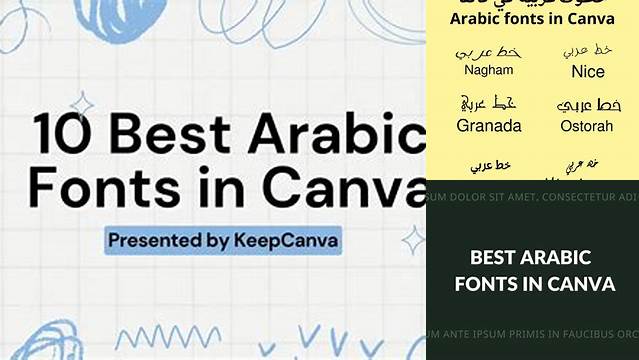
Canva Arabic Fonts: Names & How To Use Them
Alright guys, let's dive into the awesome world of Canva Arabic fonts! If you're looking to add a touch of Arabic flair to your designs, you've come to the right place. Finding the perfect font can sometimes feel like searching for a needle in a haystack, but fear not! We're going to explore the names of some fantastic Arabic fonts available on Canva and how you can effectively use them to create stunning visuals. Whether you're designing social media posts, presentations, or marketing materials, knowing the right fonts can make a massive difference. So, let's get started and unlock the beauty and versatility of Canva Arabic fonts together. Get ready to elevate your designs with a cultural and artistic touch!
H2: Unveiling Popular Canva Arabic Fonts: A Comprehensive List
Let's kick things off by exploring some of the most popular and widely used Canva Arabic fonts. Knowing these names will be your first step to finding them. These fonts are specifically crafted to meet the needs of designers who need to produce Arabic script content. Here's a list of some popular ones, known for their readability and aesthetic appeal. Let's start with a classic: Al-Qalam. This font is a great choice for formal documents, and headings and evokes a sense of tradition and authority. Next, we have Lateef, a beautiful font often used for creative designs. It's got great readability and elegance and is perfect for elegant designs. Another popular option is El Messiri, a font that exudes a modern feel. It is perfect for social media posts, and modern graphics. We have Cairo, a versatile font, perfect for both body text and headlines, offering a balanced and clear design. Don't forget Droid Arabic Naskh, a font offering a good balance between readability and style. It's a great choice for lengthy texts. Lastly, Kufi is a historic and geometric style, well-suited for logos, titles, and decorative applications. Remember, this is just a start! The world of Canva Arabic fonts is vast and dynamic, so feel free to explore and experiment. Understanding their unique characteristics will help you select the perfect font for each project. Remember to preview each font in your design before committing to it fully. This allows you to assess the font's suitability and make necessary adjustments, ensuring your design is both visually appealing and functionally effective. So, take your time, explore the options, and get ready to create designs that will captivate your audience!
H3: Detailed Descriptions of Popular Arabic Fonts on Canva
So, let's dive deeper into some of these incredible fonts and understand what makes them so special. First up, Al-Qalam. This is a very traditional-looking font and is often found in official documents and traditional designs, think of invitations, formal announcements, or anything that needs a touch of formality and sophistication. The strokes are typically clean and well-defined, making the text easy to read. This font is a great way to establish a sense of authority or cultural importance in your designs. Next, we have Lateef. This font is a great choice for creative projects, such as posters, graphics, and branding. The flowing lines and elegant curves create a sense of beauty and finesse. It's perfect for designs that need a touch of elegance, such as wedding invitations or artistic posters. With Lateef, your designs are sure to have a timeless look. El Messiri, a modern font, is a great choice for contemporary designs, such as social media posts, website headers, and modern infographics. The font's clean lines and bold presence make it perfect for grabbing attention and creating a modern visual impression. This is your go-to for designs that need to feel sleek and stylish. Consider it for your next trendy social media post or modern presentation. Then there is Cairo. This font is perfect because it's easy to read and versatile. It's a great option for both body text and headlines, thanks to its balanced design and excellent readability. Its simplicity allows your message to shine through without distracting from the overall design. Think of using it for presentations, brochures, or any project where clarity is important. Droid Arabic Naskh is another great option, perfect for long-form text content, such as articles or books. It provides readability, ensuring a comfortable reading experience, making it perfect for educational materials. This font balances style and functionality, allowing you to make your texts look good and easy to read. Finally, we'll talk about Kufi. Kufi fonts are known for their geometric shapes and historic significance. They are perfect for logos, titles, and decorative applications. The bold, stylized strokes make it eye-catching and memorable. It is great for branding projects or designs that require a touch of historical inspiration. Remember, each font has its unique personality and style, and the best choice will depend on your specific design needs.
H2: Searching and Locating Arabic Fonts Within Canva's Interface
H2: Best Practices for Using Arabic Fonts in Canva Designs
Alright, let's talk about how to use Canva Arabic fonts effectively to make your designs pop! When working with Arabic fonts, there are a few important things to keep in mind to ensure your text looks great and communicates your message effectively. Firstly, consider the readability of the font. Some fonts are designed for headlines, while others are better suited for body text. Make sure the font you choose is easy to read and that it fits the purpose of your design. Pay attention to the spacing between letters, lines, and paragraphs. Adjust the spacing so the text is easily readable. Experiment with different font sizes and styles to see what works best. Make sure the text is clear and not too small, so your audience can read it easily. Contrast is important too. Ensure there's enough contrast between the text and the background. Choose a color that makes the font stand out. Colors that have a good contrast help with the font's readability and make your design more appealing. Consider the overall design of your project. Consider the rest of your design elements and make sure the font compliments the other elements. Also, keep in mind cultural relevance. Use fonts that reflect the tone and feel of the design. If you are making a design for a formal event, you will need a more formal font, so make sure the font choice reflects the tone. Always check the final design. Before sharing, review the whole design, and make any necessary adjustments to ensure it looks the best it can be. By following these best practices, you can effectively use Canva Arabic fonts to enhance your design.
H3: Font Pairing and Typography Tips for Arabic Fonts on Canva
Let's dive into some cool tips for combining Canva Arabic fonts with other fonts to make your designs even better. Pairing fonts is an art form; it's about finding fonts that work well together. When you're using Arabic fonts, it's important to choose a complementary font. You can use a simple, easy-to-read font to go with your Arabic script, or a modern style to add more dimension. For instance, if you are using the beautiful Al-Qalam, you can pair it with a clean, sans-serif font for body text. Another good tip is to use fonts with contrasting styles. If you're using a decorative Arabic font, pair it with a simple font. The opposite is also true, use a decorative font if you use a simple one. If you're using an Arabic font with a lot of flair, choose a simple font for the body text. It helps to balance the design. Remember, fonts have personalities. Just like in the real world, they can be similar, opposite, or complementary. Contrast helps to draw attention to the important elements in your design. Use a bold or large Arabic font for headings and a simple font for body text. Typography is all about how text appears on a design. Make sure your text is clear. You may need to adjust the size, spacing, and color of the font to make sure that your design looks great. Consider hierarchy. Use different font sizes, weights, and styles to make your headings, subheadings, and body text clear. By understanding these font pairing and typography tips, you can create designs with the best use of Canva Arabic fonts.
H2: Common Challenges and Solutions When Using Arabic Fonts
Okay, let's address some common challenges you might encounter when using Canva Arabic fonts and explore ways to overcome them. One of the common challenges is readability. Some Arabic fonts, especially those that are highly stylized, can be difficult to read. To solve this, select fonts that are clear and readable, especially for longer texts. Always test different font sizes. Making sure the text is big enough is essential for readability, but make sure it does not appear too large. Also, adjust the line spacing to make sure it doesn’t look crowded. Poor character support is also a problem. Some Arabic fonts may not include all the characters you need. Make sure the font you choose supports all the characters, especially if you are using a specific dialect or regional variations. Try a different font or adjust the design. Ensure all characters are visible and legible. Formatting issues can also be challenging. Arabic script flows from right to left, which can mess up the alignment and flow. Canva usually handles this automatically, but check to make sure your text is aligned and formatted correctly. Adjust the text direction and alignment settings as needed. If you have problems with text overflow, make sure your text fits within the designated area. You may need to reduce the font size or adjust the text box to fit your design. Also, always proofread your text. Double-check for typos and errors. Ensure all words are spelled correctly. By knowing these common problems and understanding these solutions, you will be better prepared to work with Canva Arabic fonts.
H3: Troubleshooting Font Display and Text Rendering Issues in Canva
Let's talk about how to troubleshoot some technical issues you may encounter when using Canva Arabic fonts. The first thing you should check is the font itself. Make sure the font is installed and correctly loaded in Canva. Sometimes, a font won't display correctly if it is not fully downloaded. If the font isn't displaying properly, try refreshing your browser. Check your internet connection. Ensure your internet connection is stable. Also, make sure Canva is up-to-date. Use the latest version of the Canva app or website. If you are still facing problems, clear your browser's cache and cookies. Old data can sometimes interfere with the font's performance. Sometimes, text rendering issues can arise if you're using a specific file format. Different file formats can handle fonts in different ways. Try saving your design in various formats, such as PNG, JPEG, or PDF, to see which works best for your design. You can also try using a different device or browser. The problem may be caused by your browser or device. Always check the language settings. Ensure Canva’s language settings are set to support Arabic. This will ensure the text displays correctly. If none of the above steps resolve the problem, contact Canva support for help. They can provide specialized assistance. By understanding these troubleshooting steps, you'll be better equipped to solve any font-related issues you may encounter when working with Canva Arabic fonts.
H3: Recommended Canva Tutorials and Guides for Font Mastery
Let's dive into some great resources that can teach you how to effectively use Canva Arabic fonts. First off, check out Canva's official tutorials. Canva offers many easy-to-follow tutorials. They guide you through everything from the basic interface to advanced design techniques. Look for specific tutorials on text and typography. These tutorials often demonstrate how to use different fonts, and show best practices for your designs. Then, head over to the Canva Design School. The Canva Design School offers in-depth courses and articles. You can learn how to use specific fonts and other design skills. Look for courses that discuss typography and font pairing. These courses can help you to choose fonts and create awesome designs. Then, explore YouTube channels. Look for YouTube channels created by Canva, or by other designers. These videos can provide step-by-step guides, and useful tips. Use keywords like